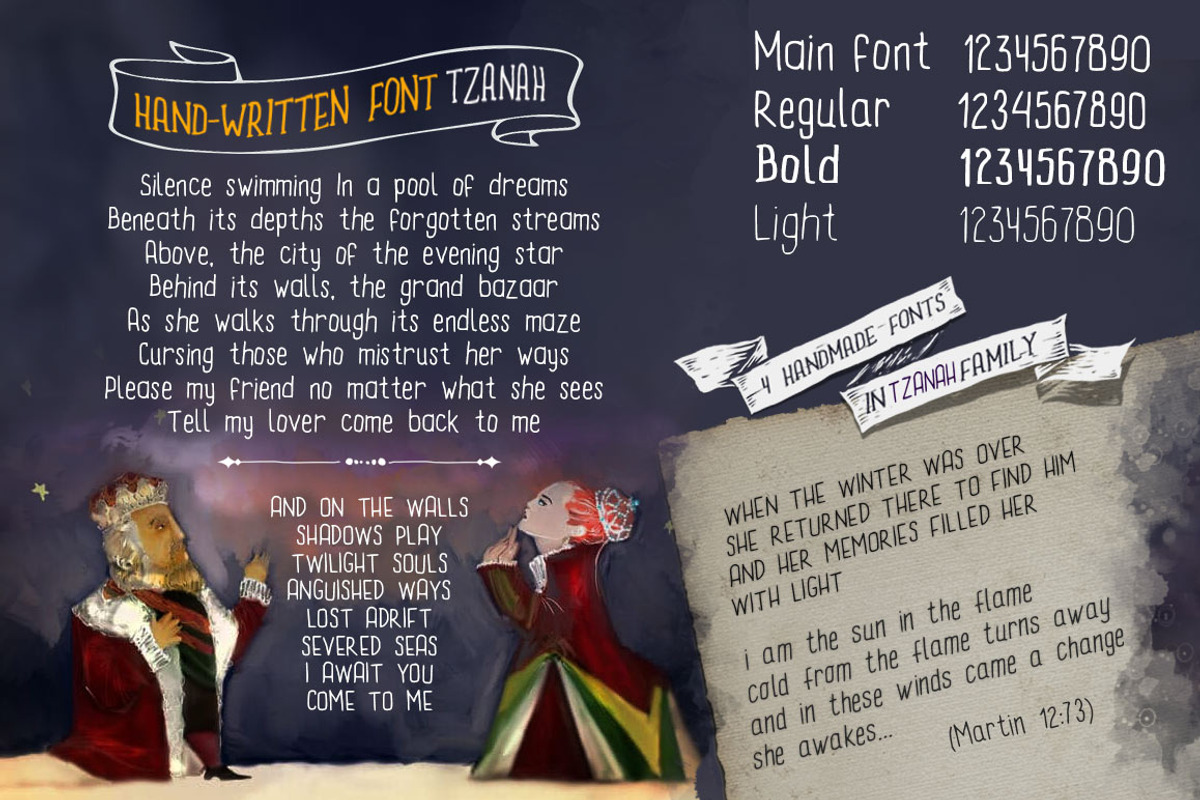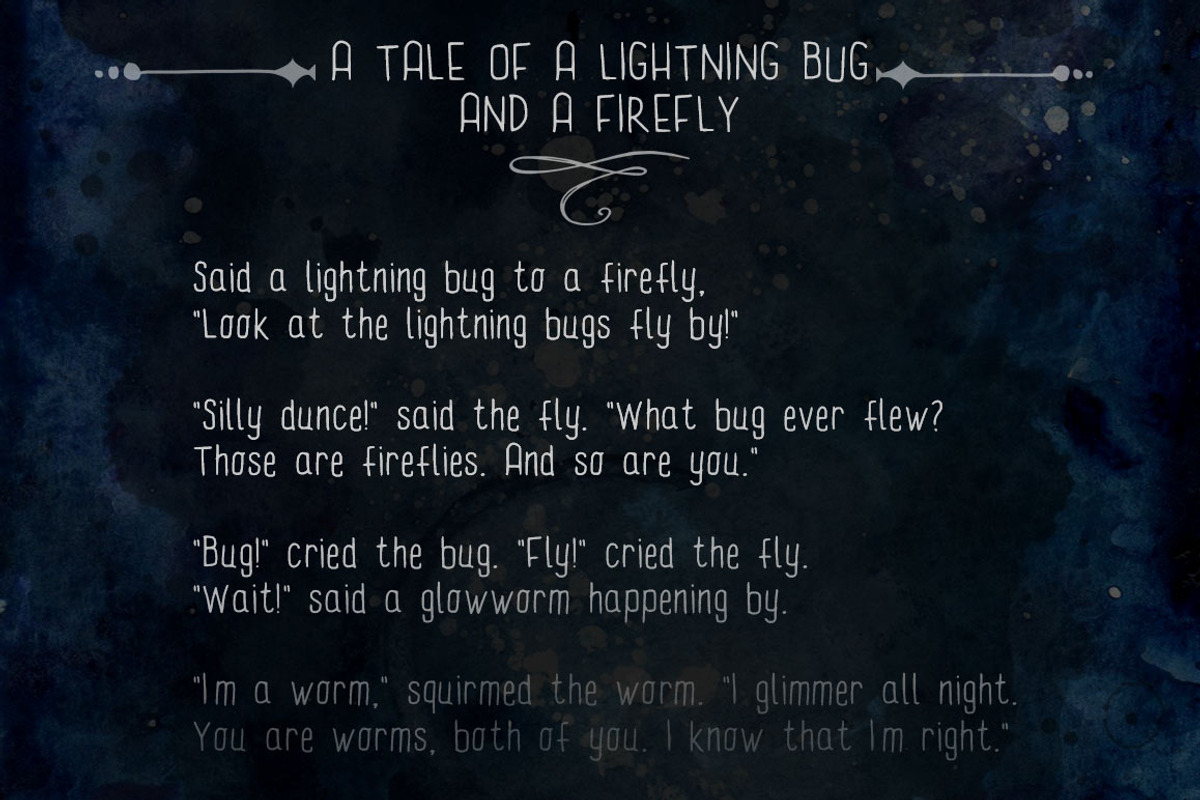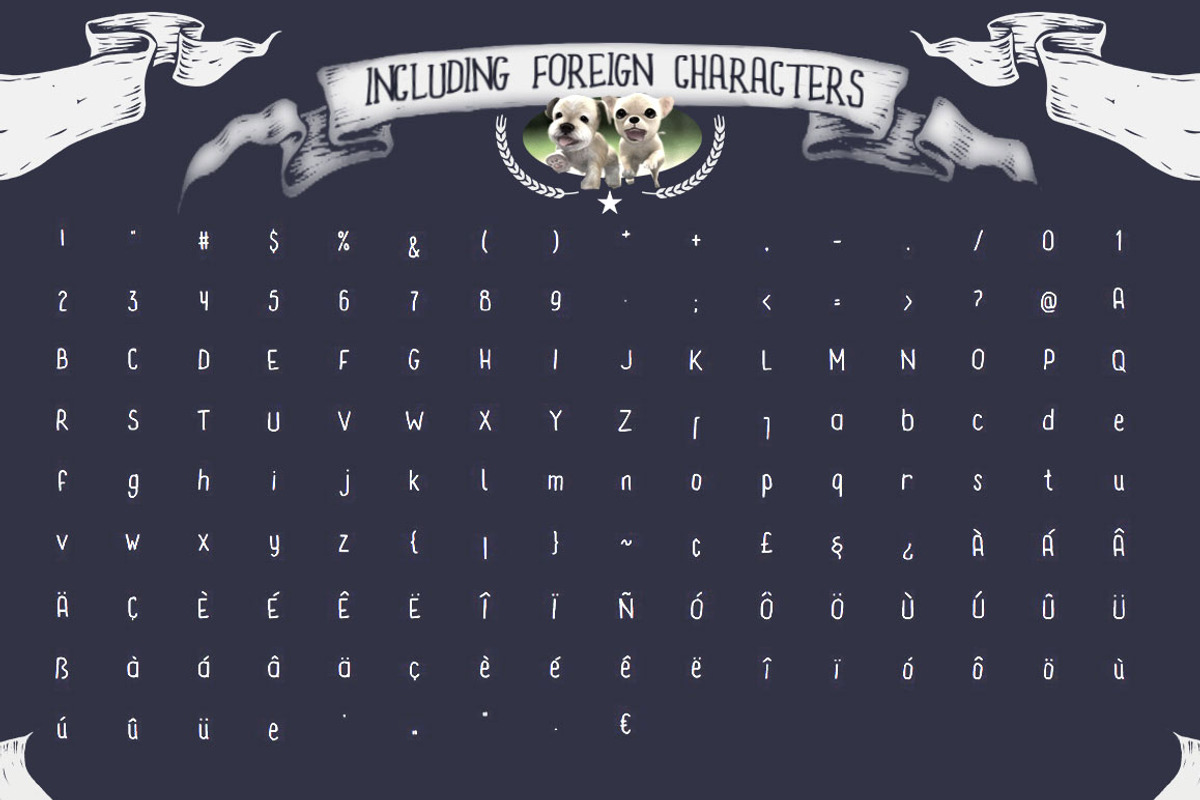
Hand Written font TZANAH
Hand Written font TZANAH by the little wonder shop is a font selected for branding, posters, packaging, typography.
- Tzanah Light
- Tzanah Regular
- Tzanah Medium
- Tzanah bold
Why Hand Written font TZANAH is worth a look
Hand Written font TZANAH by the little wonder shop fits naturally into Branding, posters, packaging, typography.